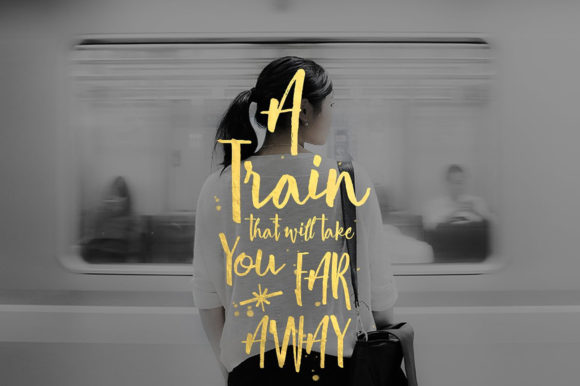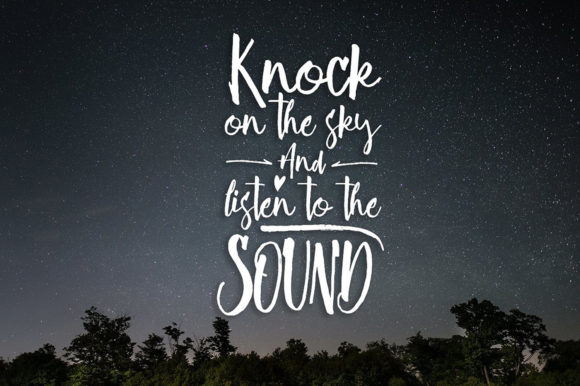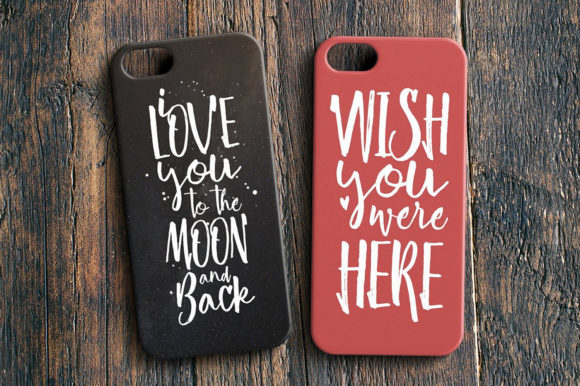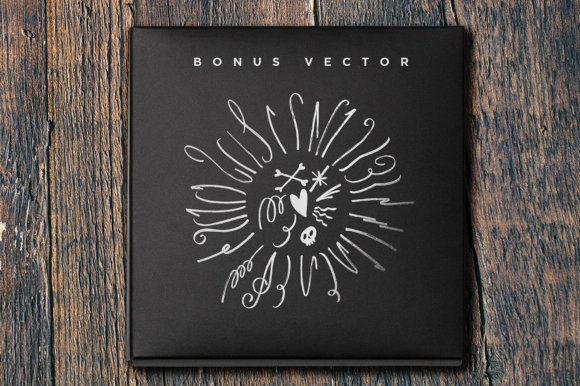
Introduction to Risoless Font
Do you ever find yourself staring at a blank page, waiting for inspiration to strike? That’s exactly where I was when I stumbled upon the Risoless Font – a game-changing design resource that has since become my go-to companion for creative projects. Its charming, playful characters seem to dance along the baseline, adding a touch of whimsy to any design.
As a designer, having access to high-quality fonts like Risoless can be a total game-changer. Not only can it elevate your designs, but it also offers a transparent background, making it easy to work with and customize to fit your needs. And the best part? It’s available for free download, making it a valuable addition to any designer’s toolkit.
Whether you’re working on a personal project or a client brief, the Risoless Font is sure to bring a touch of magic to your designs. So why not give it a try and see how it can take your creative ideas to the next level?
Key Features of Risoless Font
- High-quality design resource with a unique aesthetic, perfect for creative projects.
- Comes with a transparent background, making it easy to overlay on any image or design.
- Designed to be highly legible, even at small sizes, with a clear and crisp resolution of 300 DPI.
- Unique characteristics include its modern and minimalist design, making it ideal for a wide range of creative projects.
Honest Review: Risoless Font
I recently stumbled upon the Risoless Font, and I must say it’s been a game-changer for my design projects. As a designer, I’m always on the lookout for high-quality design resources that can elevate my work. The Risoless Font is one such resource that has caught my attention.
- What works well: ✨ The Risoless Font has a unique, playful vibe that adds a touch of personality to any creative project. It’s perfect for designs that require a fun, whimsical feel. The font is also available for free download, making it an excellent resource for designers on a budget.
- What works well: ✨ The font’s transparent background feature allows for seamless integration with other design elements, giving designers more creative freedom.
However, I did encounter a few limitations with the Risoless Font. ⚠️ For one, the font’s character set is limited, which can make it less suitable for longer texts. Additionally, the font may not be the best choice for professional or formal designs, as its playful nature may not be suitable for more serious contexts.
Overall, I’m impressed with the Risoless Font’s potential as a design resource. Its unique style and transparent background feature make it an excellent choice for creative projects. While it may have some limitations, it’s definitely worth considering for designers looking for a high-quality, free download font.
Risoless Font
Risoless Font is a versatile and high-quality design resource ideal for various creative projects. Its unique features and transparent background make it an excellent addition to any design.
Tips for Getting the Most Out of Risoless Font
Experiment with different font sizes, colors, and combinations to achieve the desired look for your creative project.
Risoless Font is suitable for:
- Graphic design and visual identity projects
- Social media graphics and advertisements
- Business cards, brochures, and posters
Alternatives to Risoless Font
Comic Sans MS is a classic sans-serif font suitable for informal and creative projects. It features a friendly, approachable feel, making it ideal for children’s books, social media graphics, and other design elements where a playful tone is required.
Compared to Risoless Font, Comic Sans MS has a more casual and laid-back vibe, which may be suitable for projects where a more relaxed atmosphere is desired.
Open Sans is a clean and modern sans-serif font, perfect for web design, mobile apps, and other digital projects. It features a clear, legible design with a transparent background, making it ideal for high-quality creative projects.